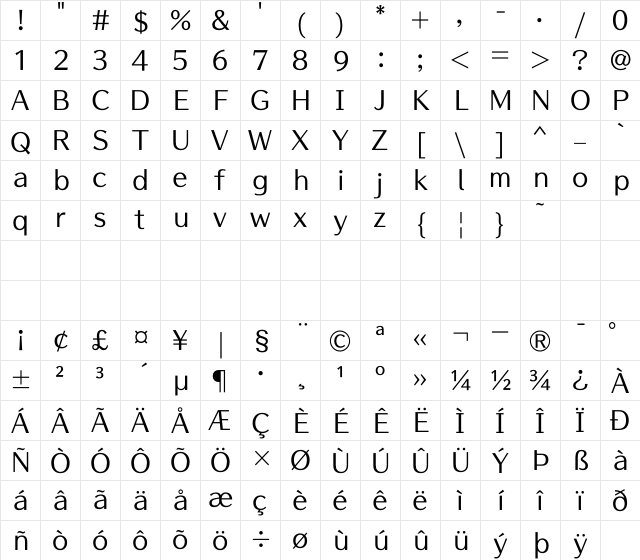
UDTypos510 Std R
Designer: TypeBank Co., Ltd.
Design Context for UDTypos510 Std
UDTypos510 Std is a composed and adaptable typeface that performs quietly and consistently across a wide range of design contexts.